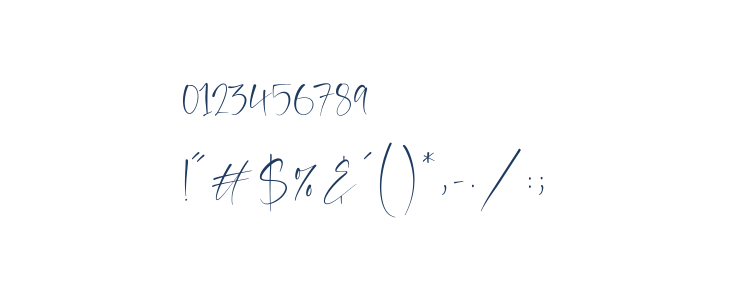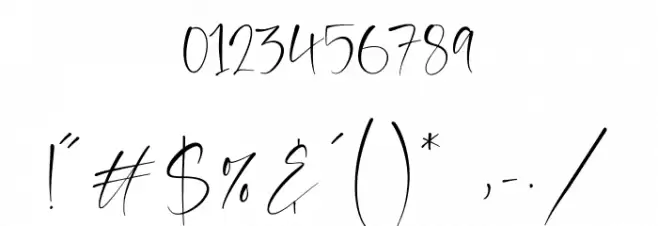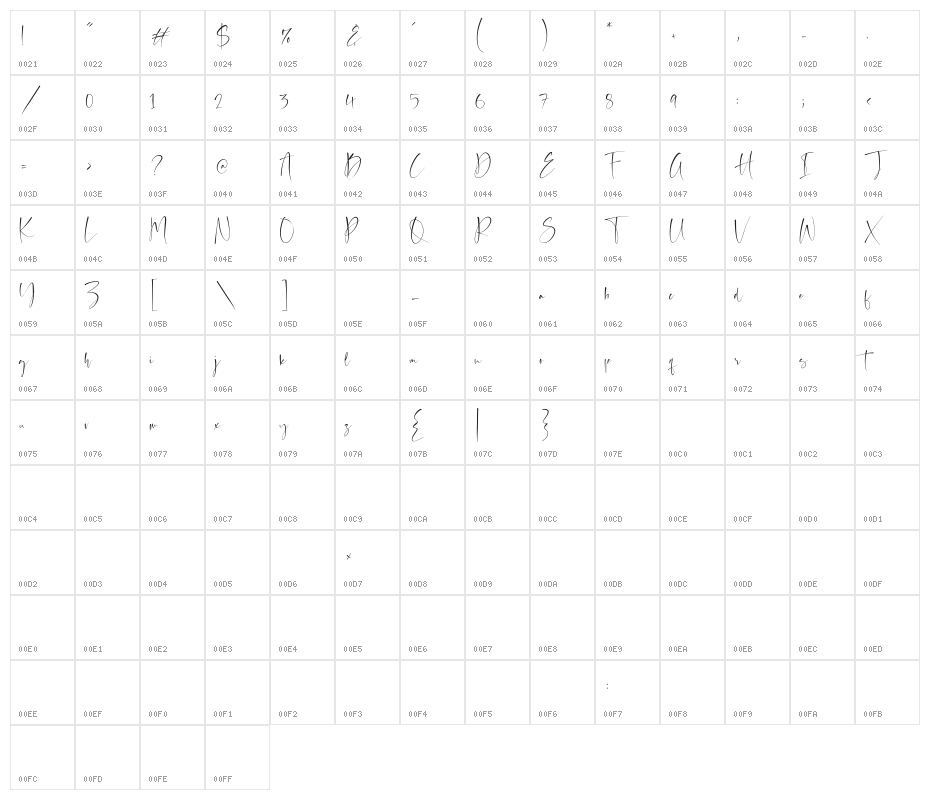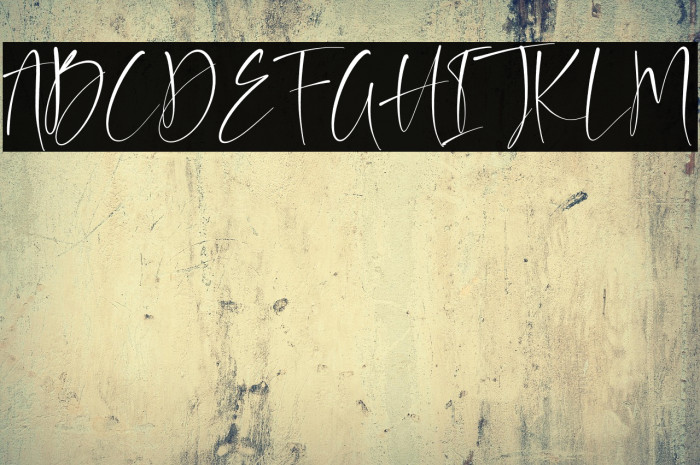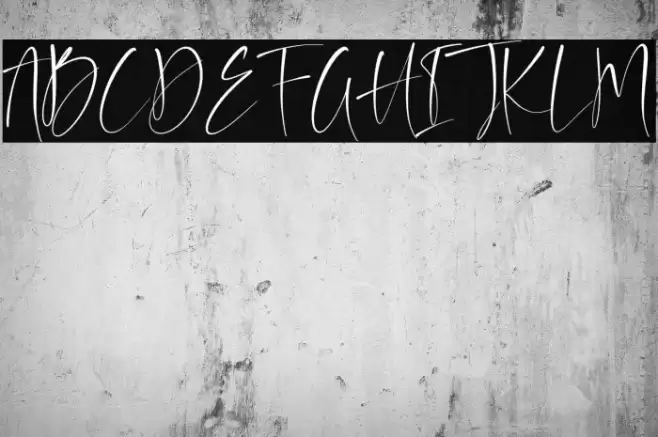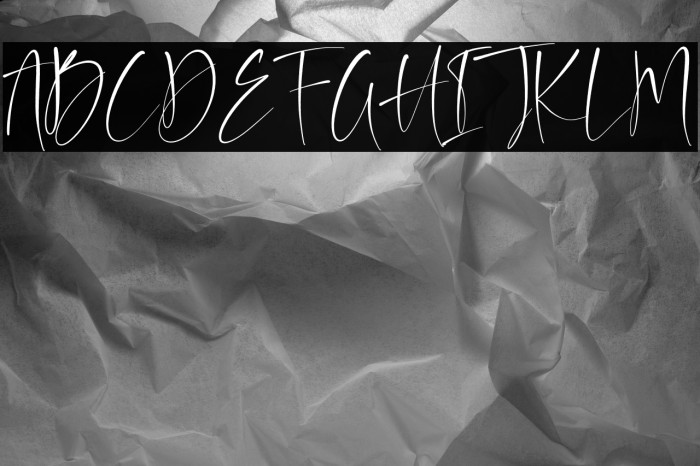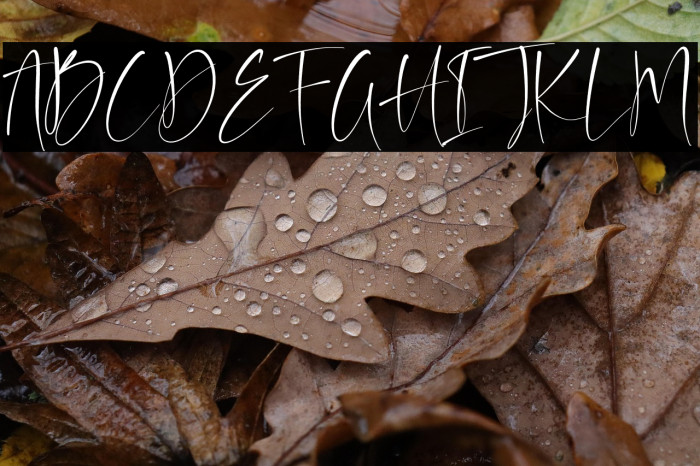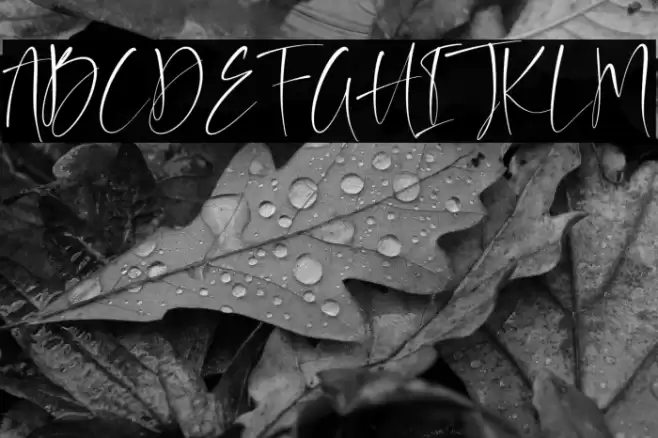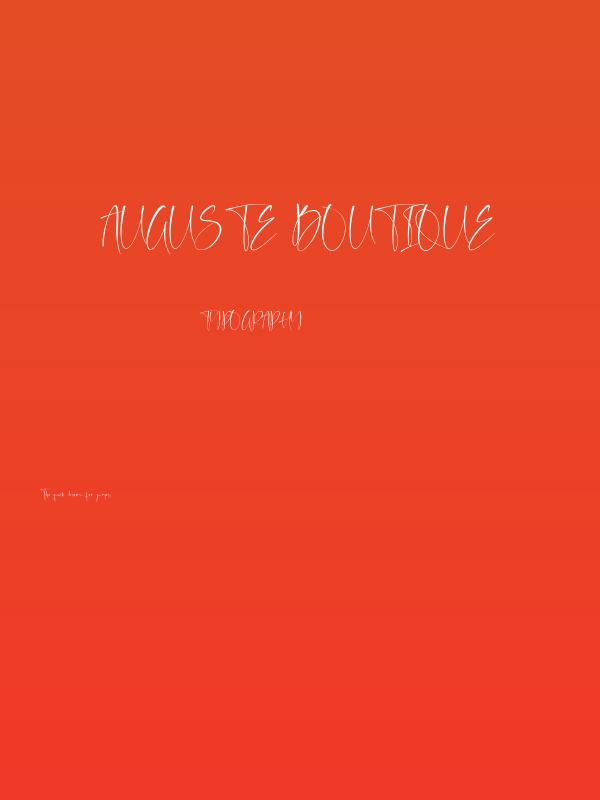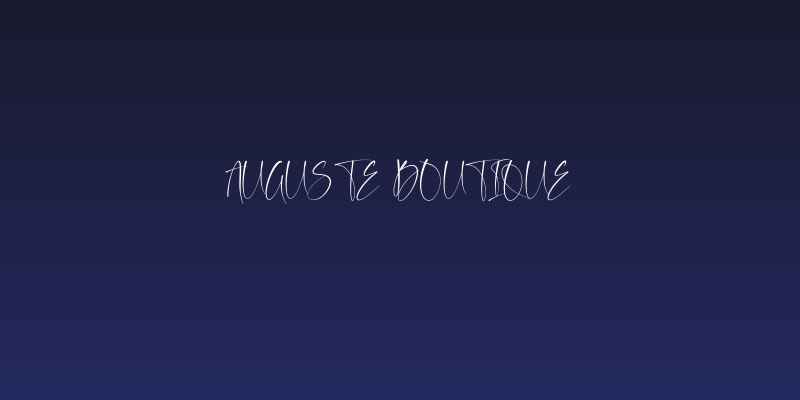
Auguste Boutique Font
Auguste Boutique Description
This font exudes a modern, elegant charm with its handwritten style. The letters are characterized by their fluid, cursive strokes, giving them a sophisticated and artistic appearance. The uppercase letters are tall and slender, while the lowercase letters maintain a graceful flow, enhancing the overall aesthetic. The numbers and special characters complement the alphabet with their consistent style, making the font versatile for various design needs. Its delicate lines and artistic flair make it suitable for projects that require a touch of elegance and creativity.
| Proposed Projects | Ideal for wedding invitations, branding, logo design, and elegant stationery. |